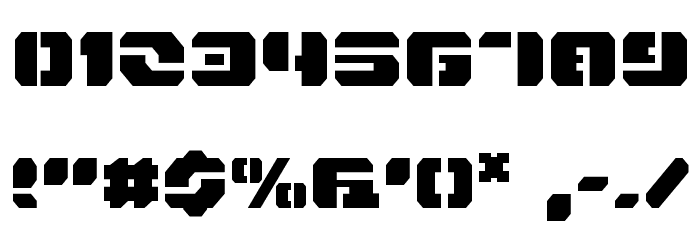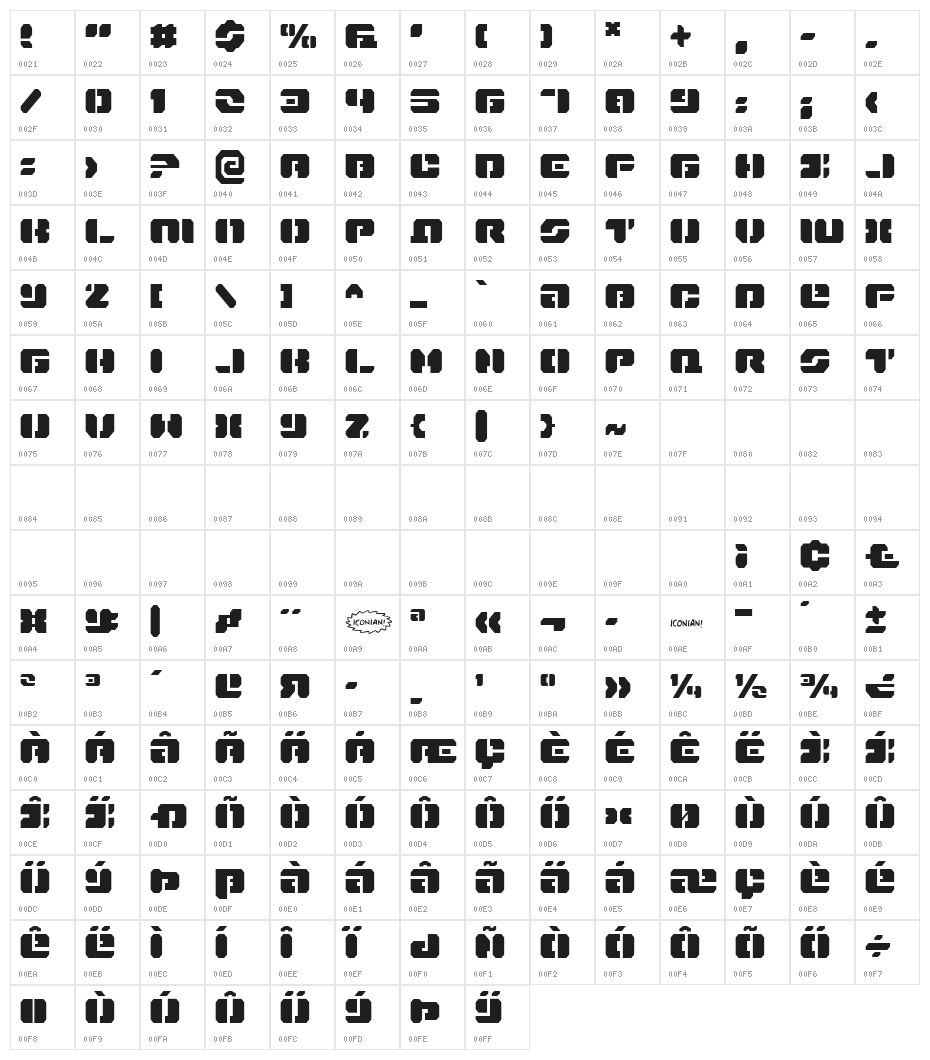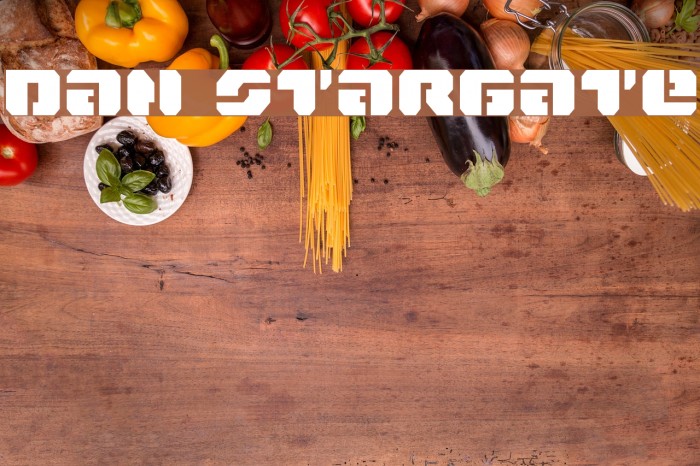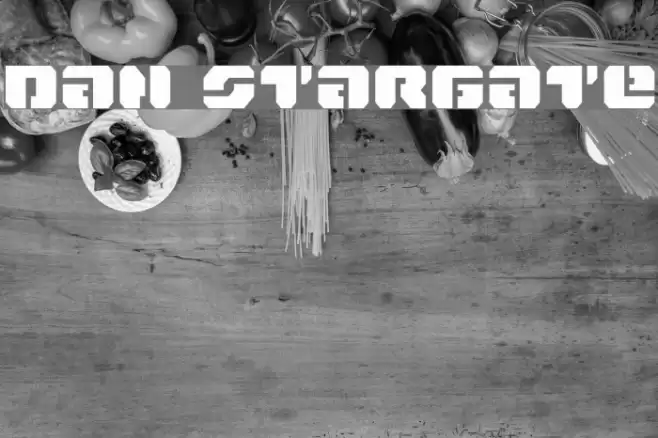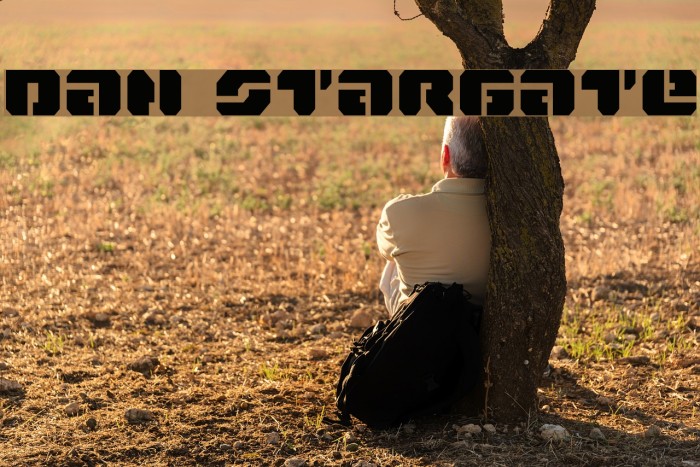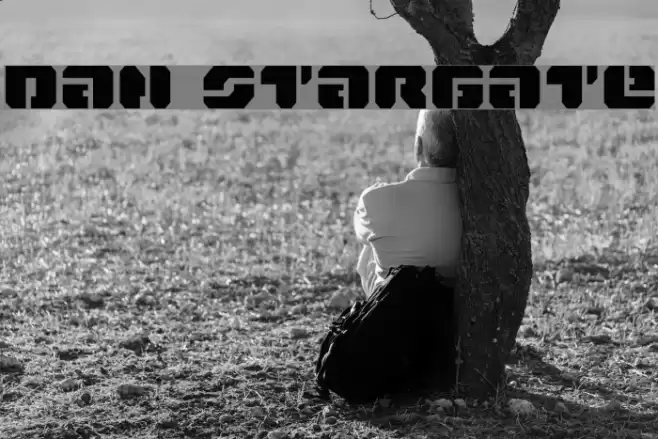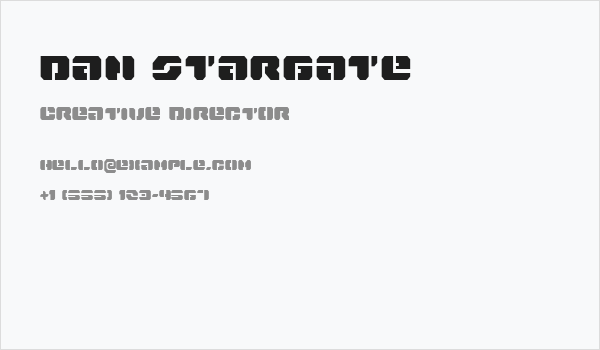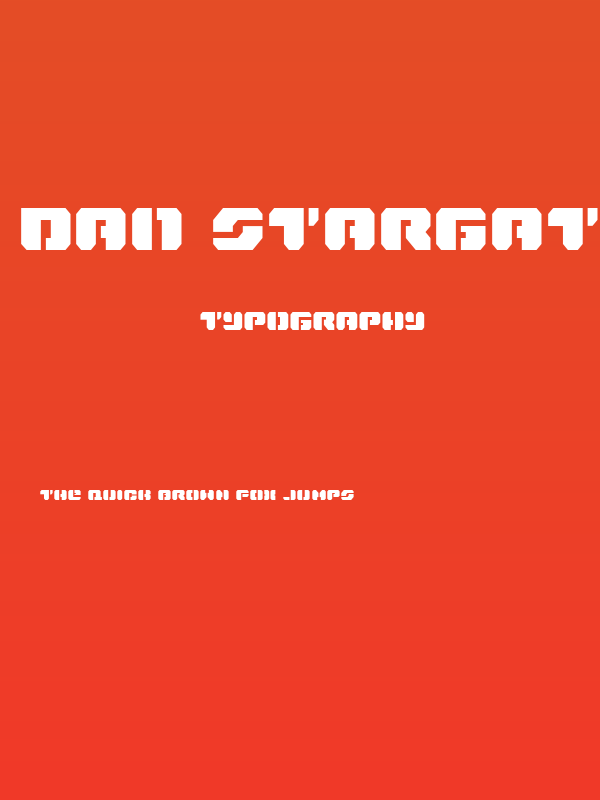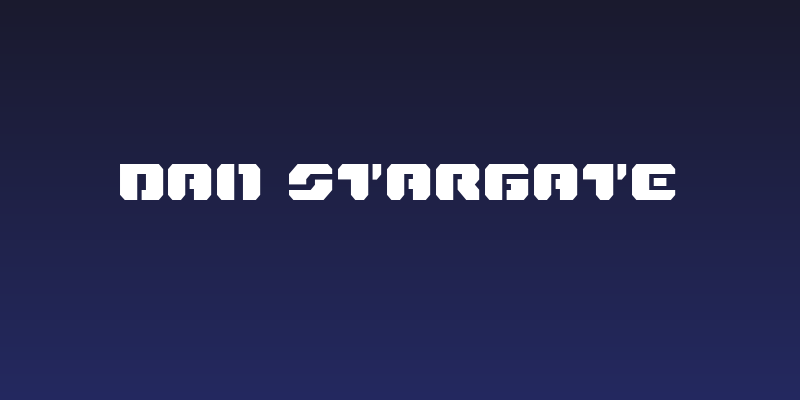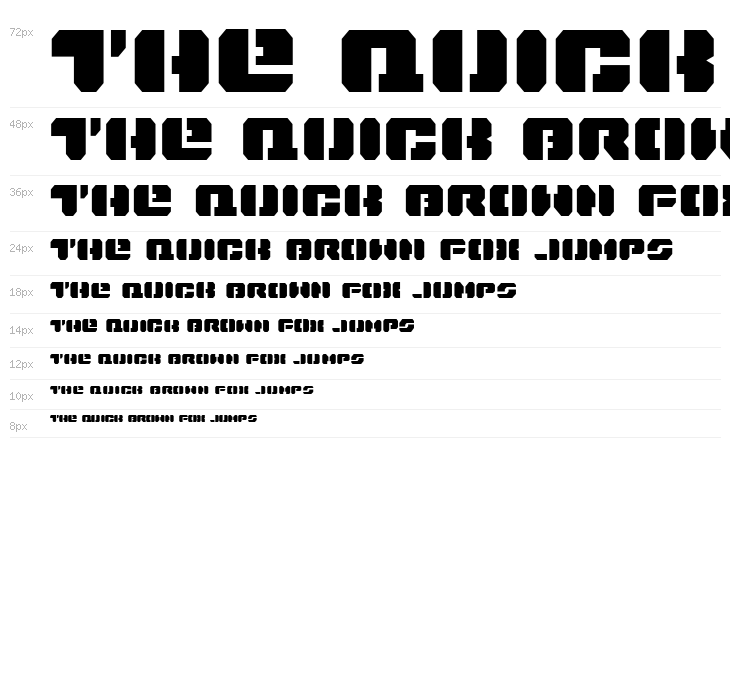
Dan Stargate Font
Dan Stargate Description
This font features a bold, futuristic design with geometric shapes and sharp angles. The characters are constructed with solid, block-like forms that give a sense of strength and modernity. The uppercase and lowercase letters maintain a consistent style, with the lowercase slightly smaller but equally bold. Numbers and special characters follow the same design principles, ensuring uniformity across all glyphs. The font's unique style makes it stand out, with its thick lines and angular cuts creating a dynamic and eye-catching appearance.
| Proposed Projects | Ideal for sci-fi themed projects, video game titles, movie posters, and technology branding. |